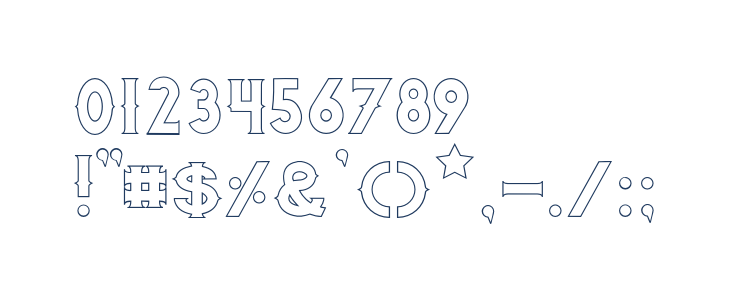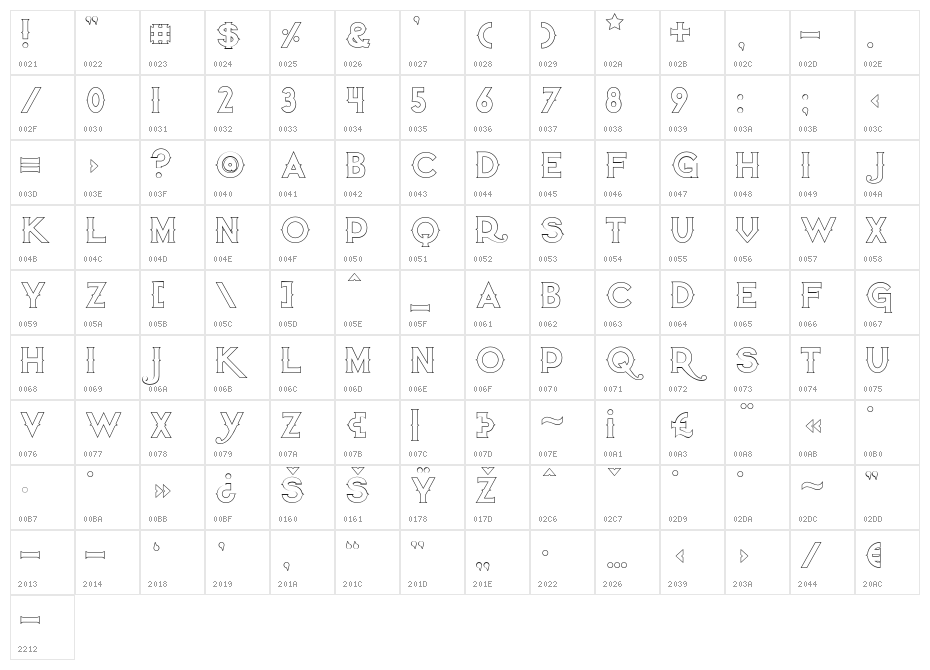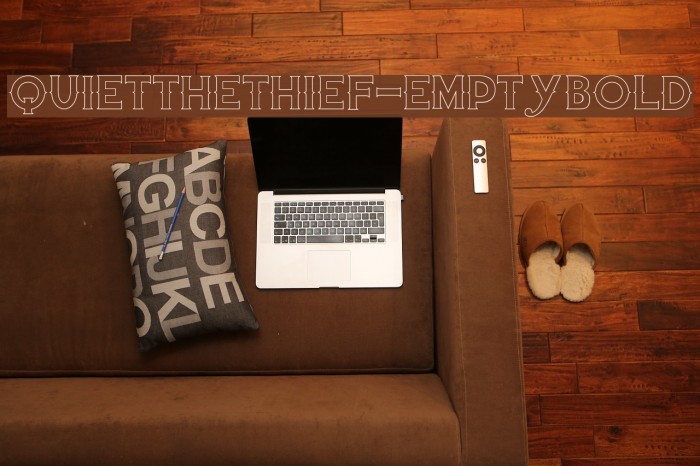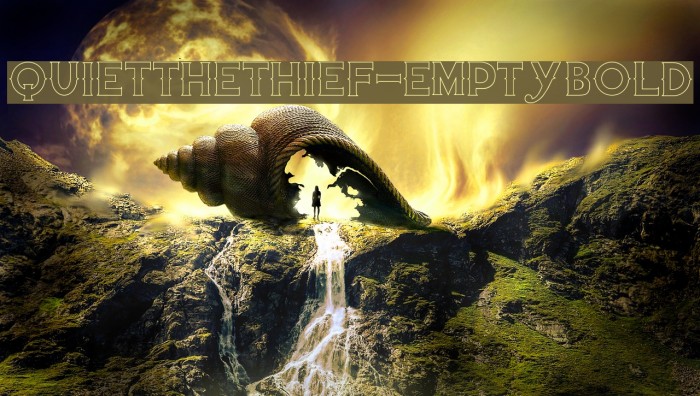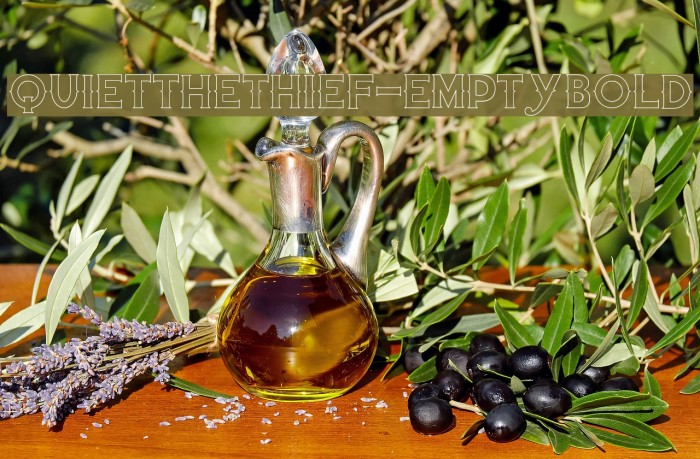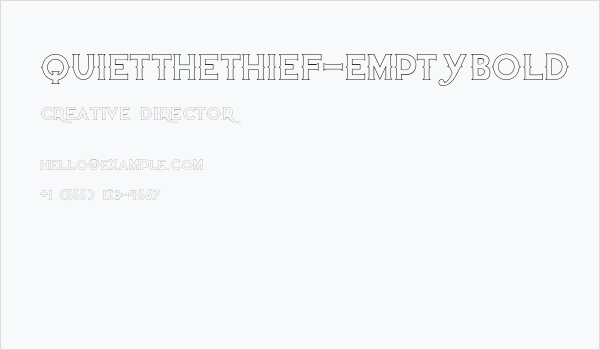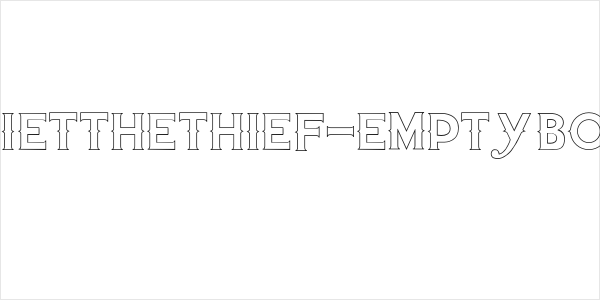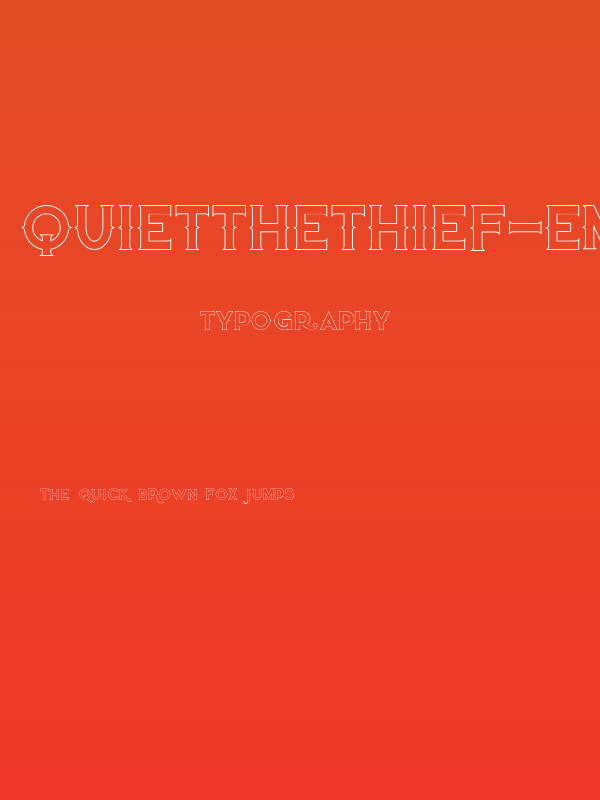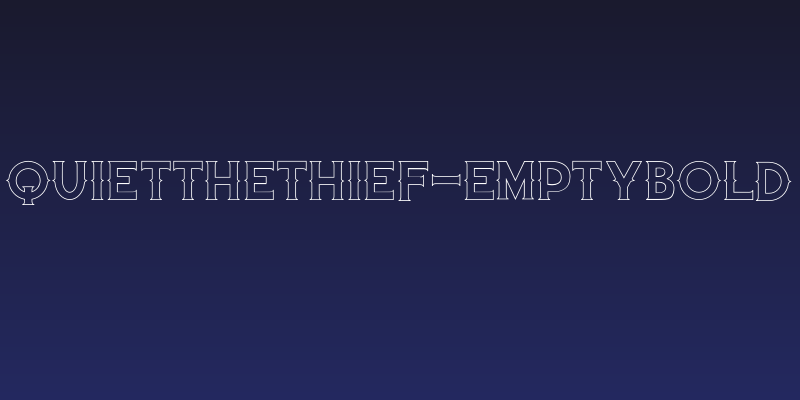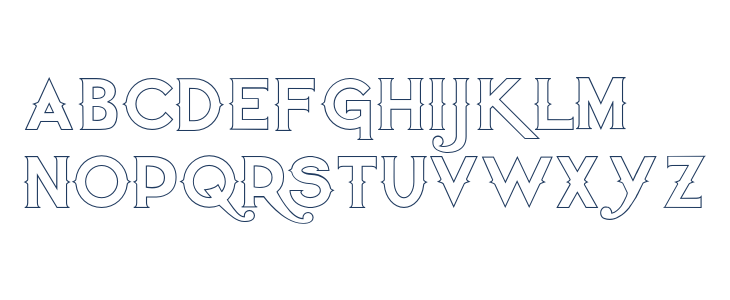
QuiettheThief-EmptyBold Font
QuiettheThief-EmptyBold Description
This font features a bold and decorative style with a hollow, outlined design. The uppercase and lowercase letters exhibit a unique flair with subtle curves and sharp edges, creating a dynamic and eye-catching appearance. The numerals and special characters maintain this aesthetic, ensuring consistency across all glyphs. The font's distinct style makes it suitable for creative and artistic projects, where a strong visual impact is desired. Its outlined nature allows for versatile use in various color schemes and backgrounds, enhancing its adaptability.
| Proposed Projects | Ideal for posters, logos, branding, and artistic designs where a bold statement is needed. |